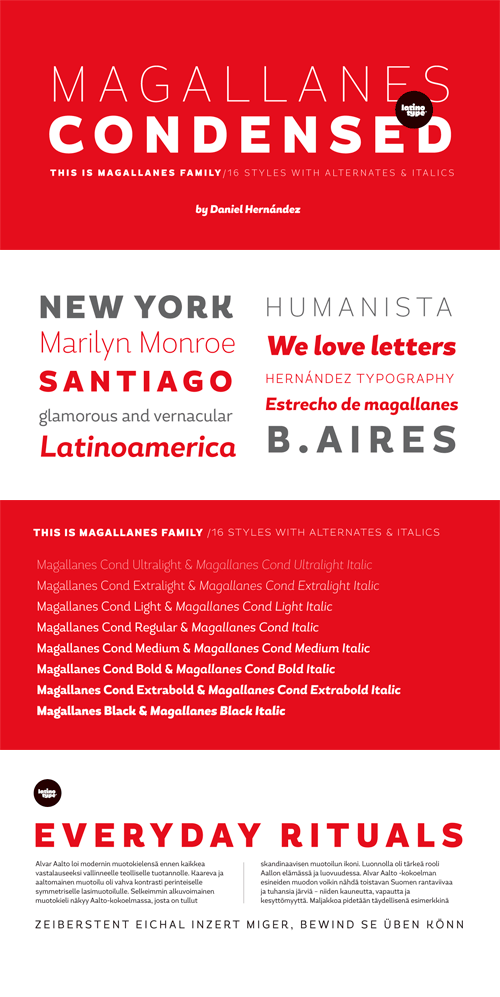
Magallanes Condensed Font Family
Say hello to the new Magallanes Condensed Family, a contemporary neo-humanist sans serif font designed by Daniel Hernández. Its strokes and terminals are related to the calligraphic strokes from humanist typefaces. It comes with 8 styles, from Ultra Light to Black, each with its true italics. Every weight comes with alternative glyphs for a more dynamic use. Magallanes is the perfect titling font to complement text faces in magazines, logotypes, etc. Languages supported include Basic Latin, Western European, Euro, Catalan, Baltic, Turkish, Central European, Romanian, Pan African Latin.